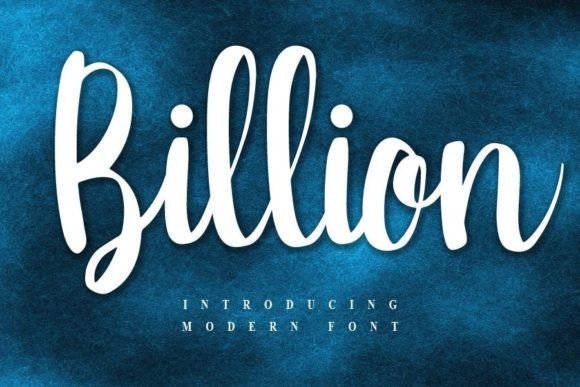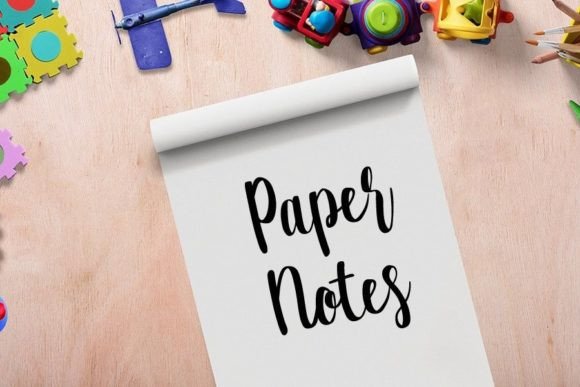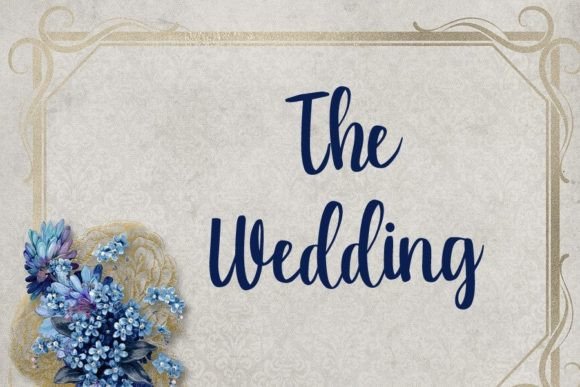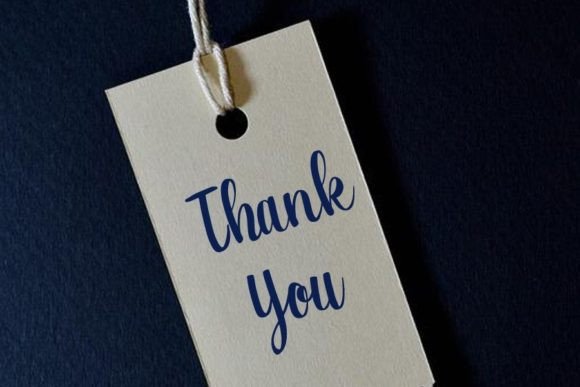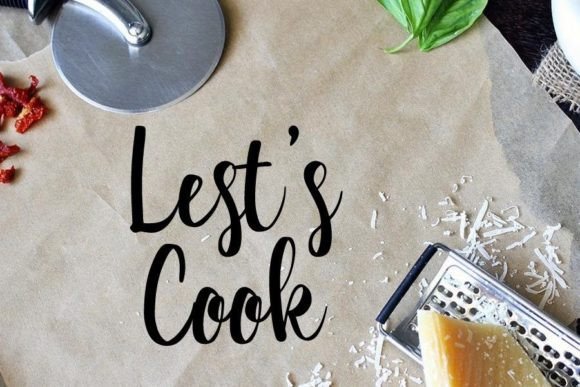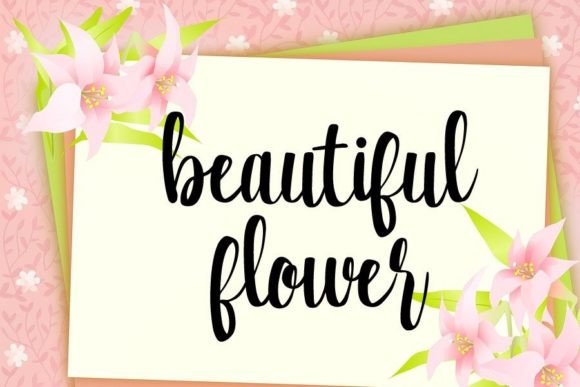
Billion Font
About Billion Font
It sounds like you’re describing a versatile and appealing font that has the potential to enhance a variety of design projects. A fresh and beautiful font like the one you’re mentioning seems well-suited for a range of purposes, from digital platforms like YouTube banners to physical items like wedding invitations and ID cards. Its simplicity and uniqueness make it adaptable to different design needs, ensuring a clean and distinctive look for your projects.
Using such a font in your designs not only adds an aesthetic appeal but also contributes to the overall branding and professionalism of your business. Fonts play a crucial role in conveying the tone and personality of your brand, and it seems like this particular font achieves a balance between simplicity and uniqueness.
Whether it’s for promotional materials like flyers or for crafting a distinctive logo, having a font that aligns with your brand identity can indeed contribute to the progress and development of your business. It’s great that you’ve found a font that you feel confident using across various design applications.